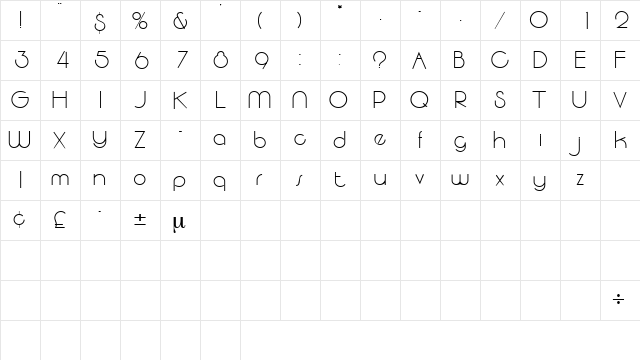
SpatsSSK Regular
Design Context for SpatsSSK Typeface
SpatsSSK takes a measured approach to typography — its balanced proportions and neutral character make it a reliable workhorse for both digital and print work.